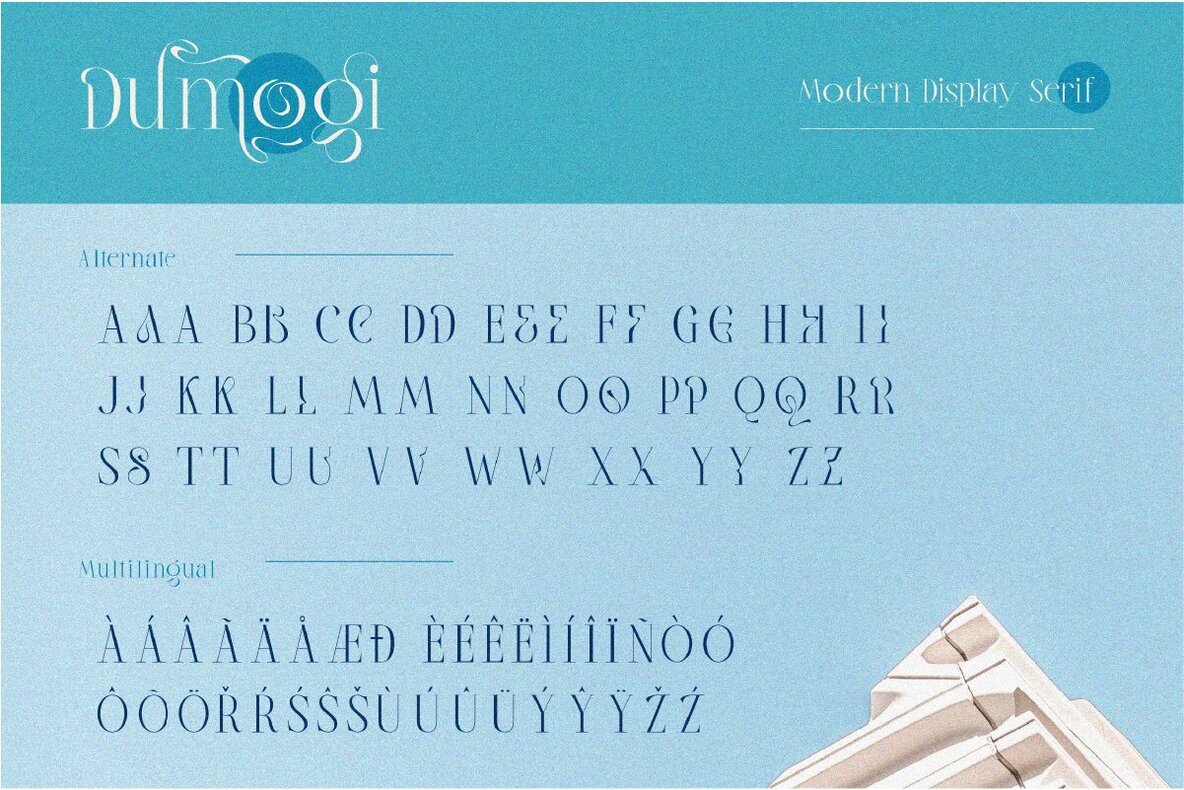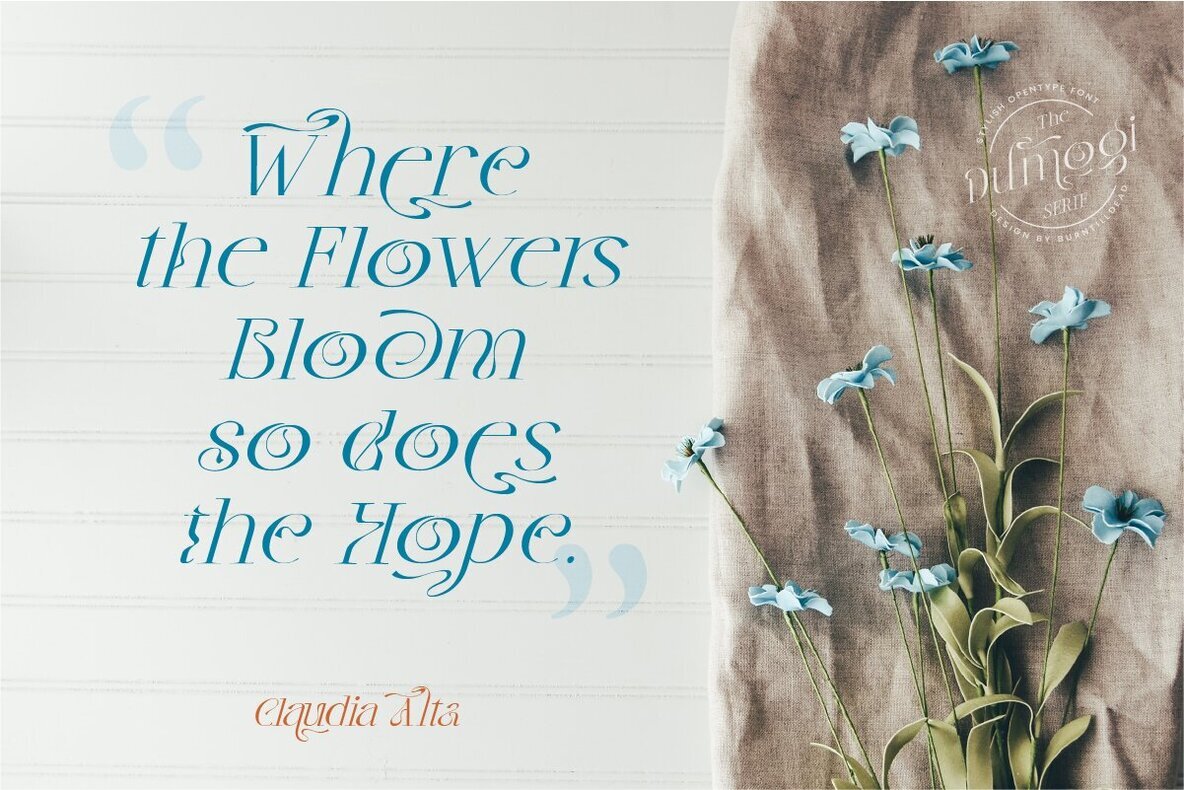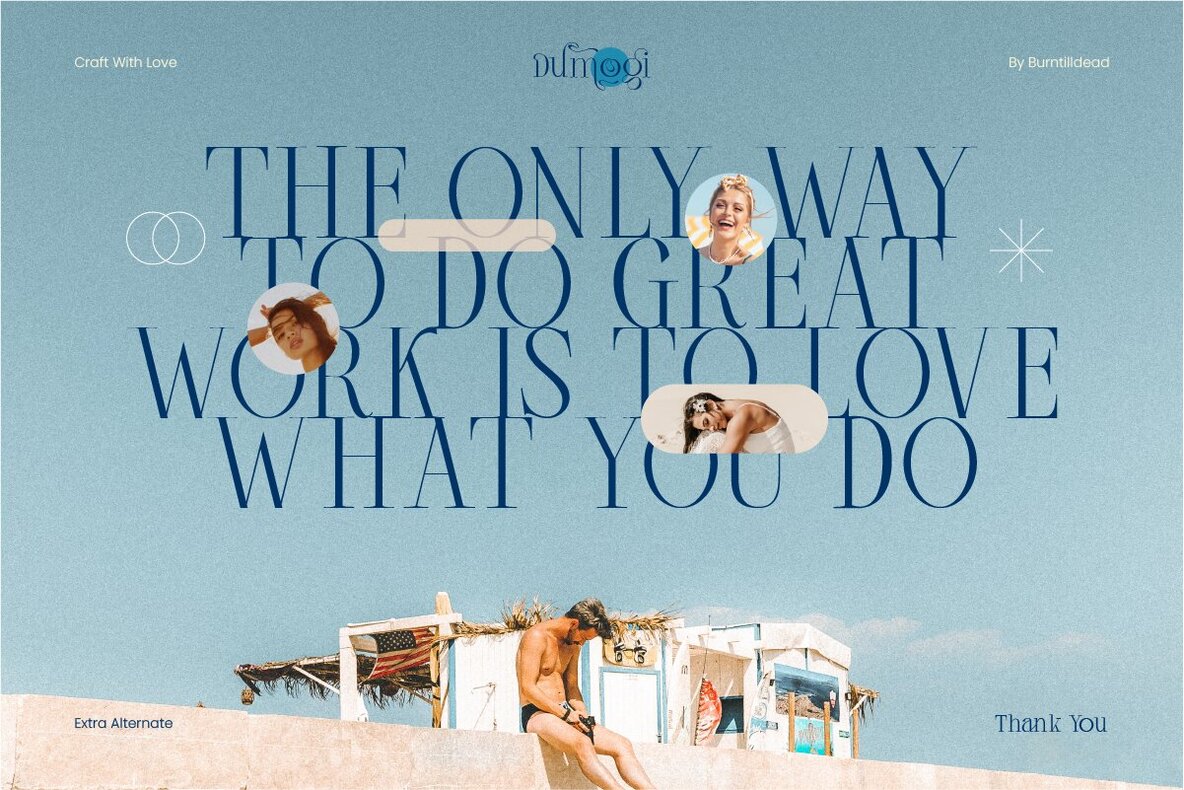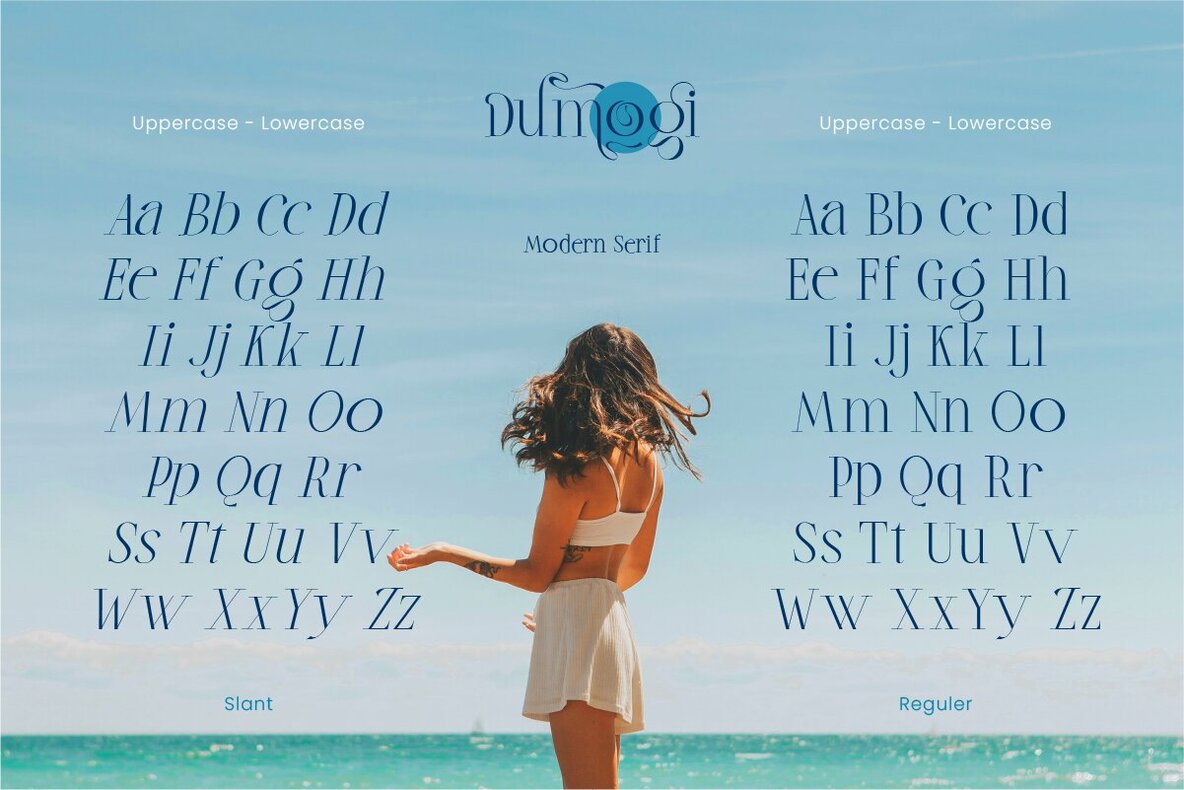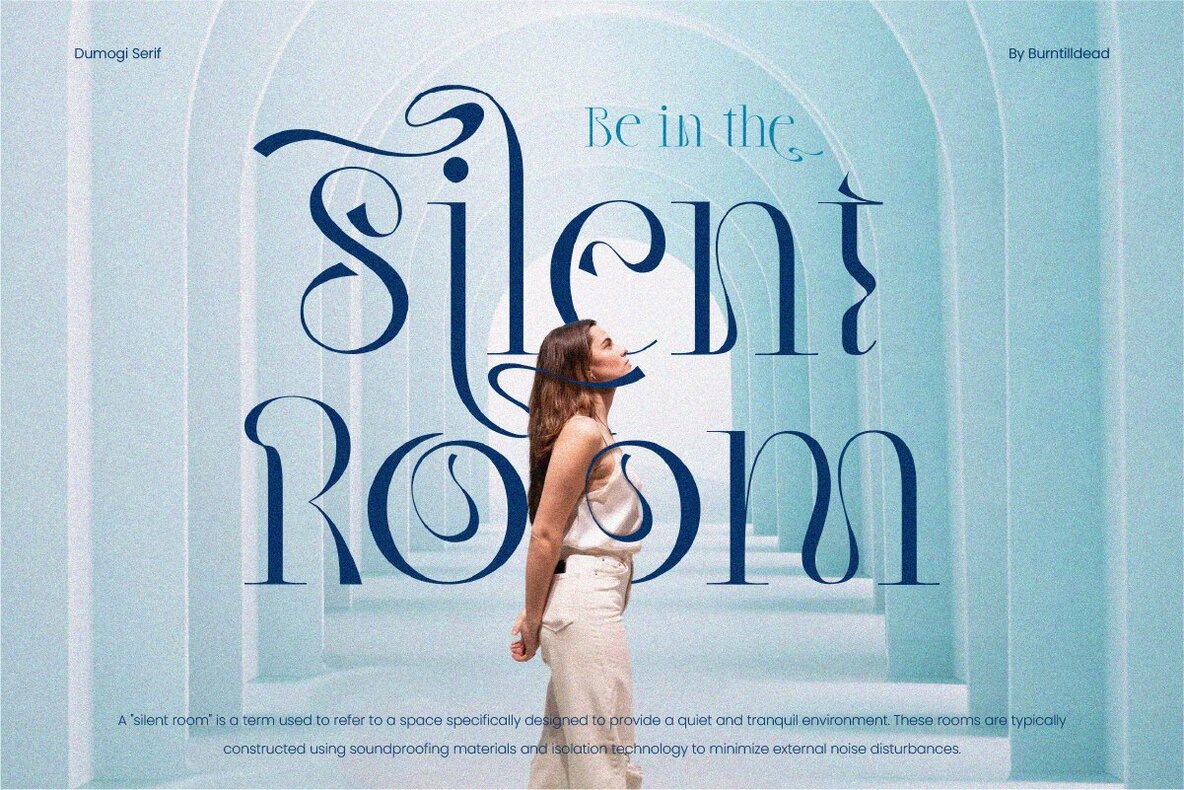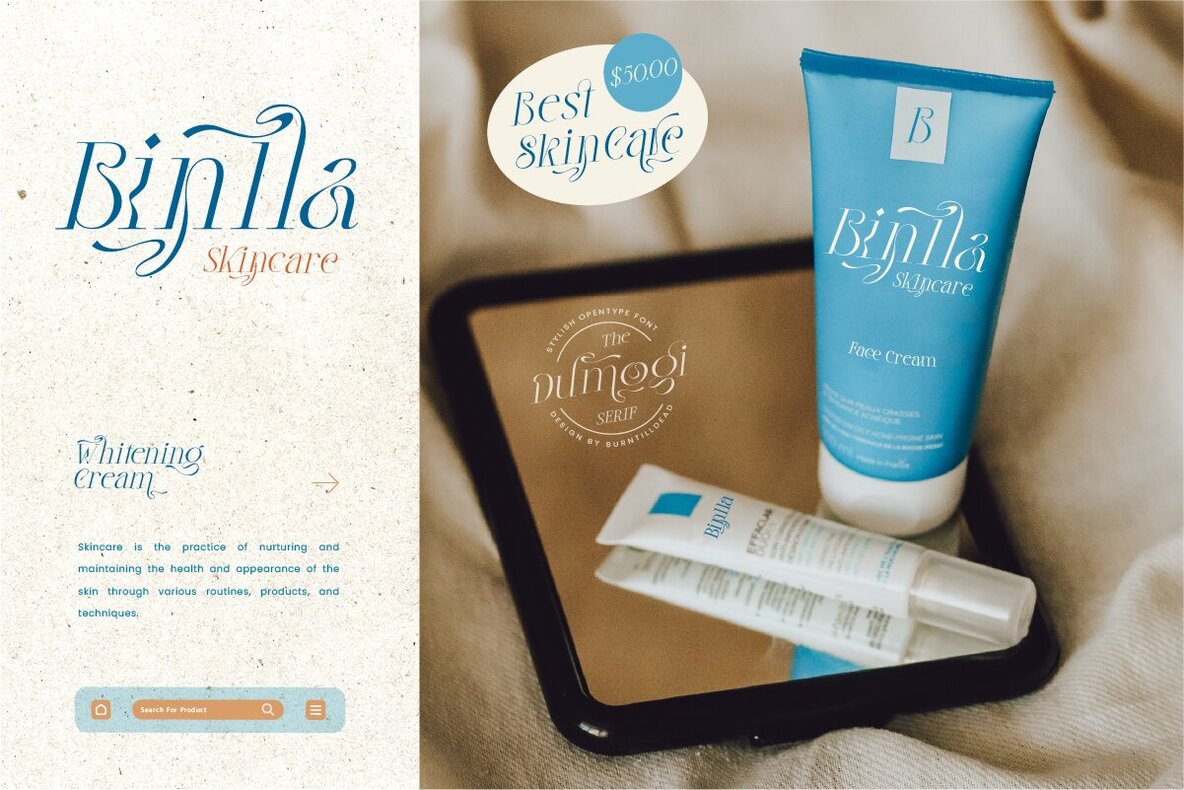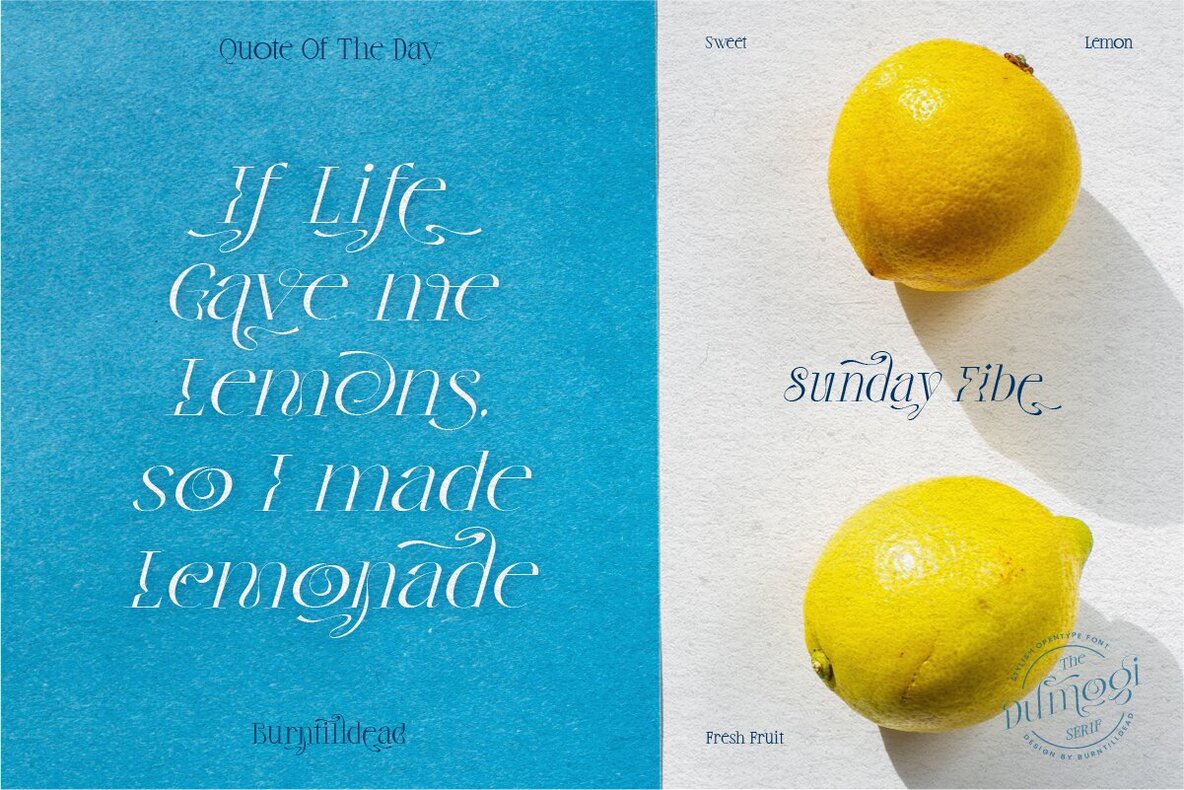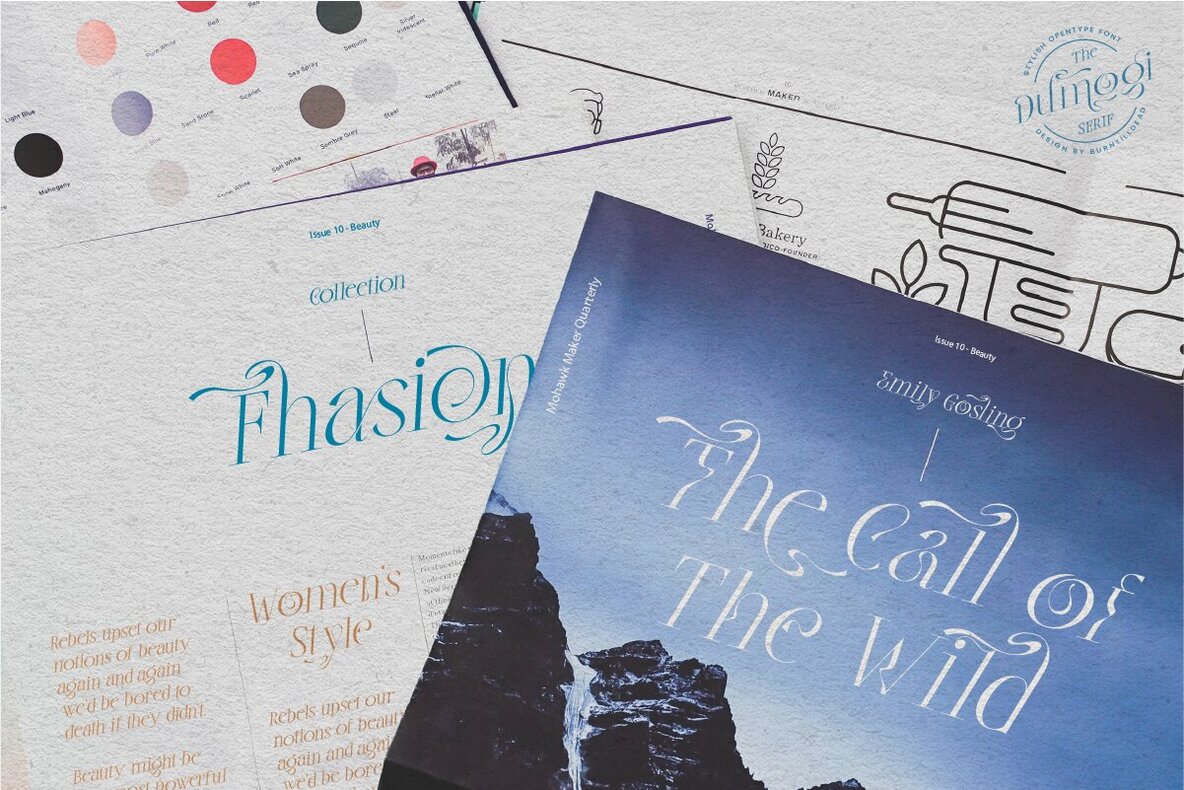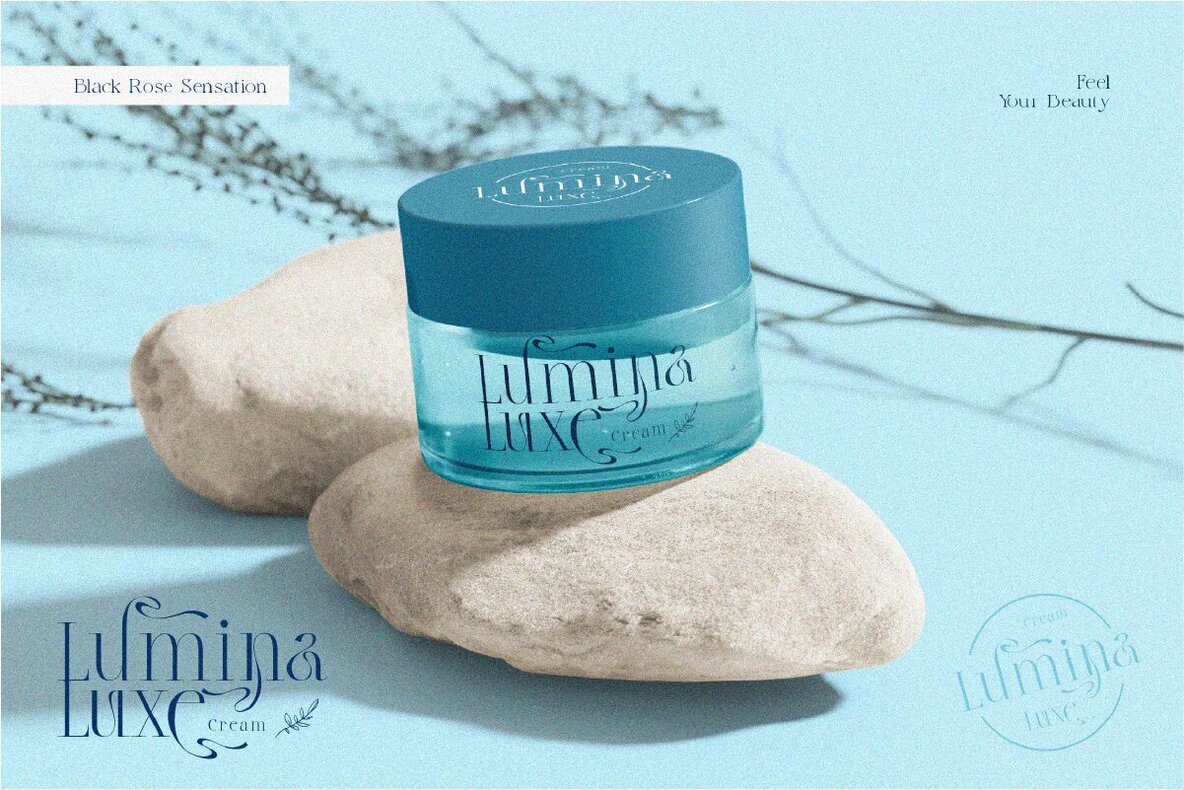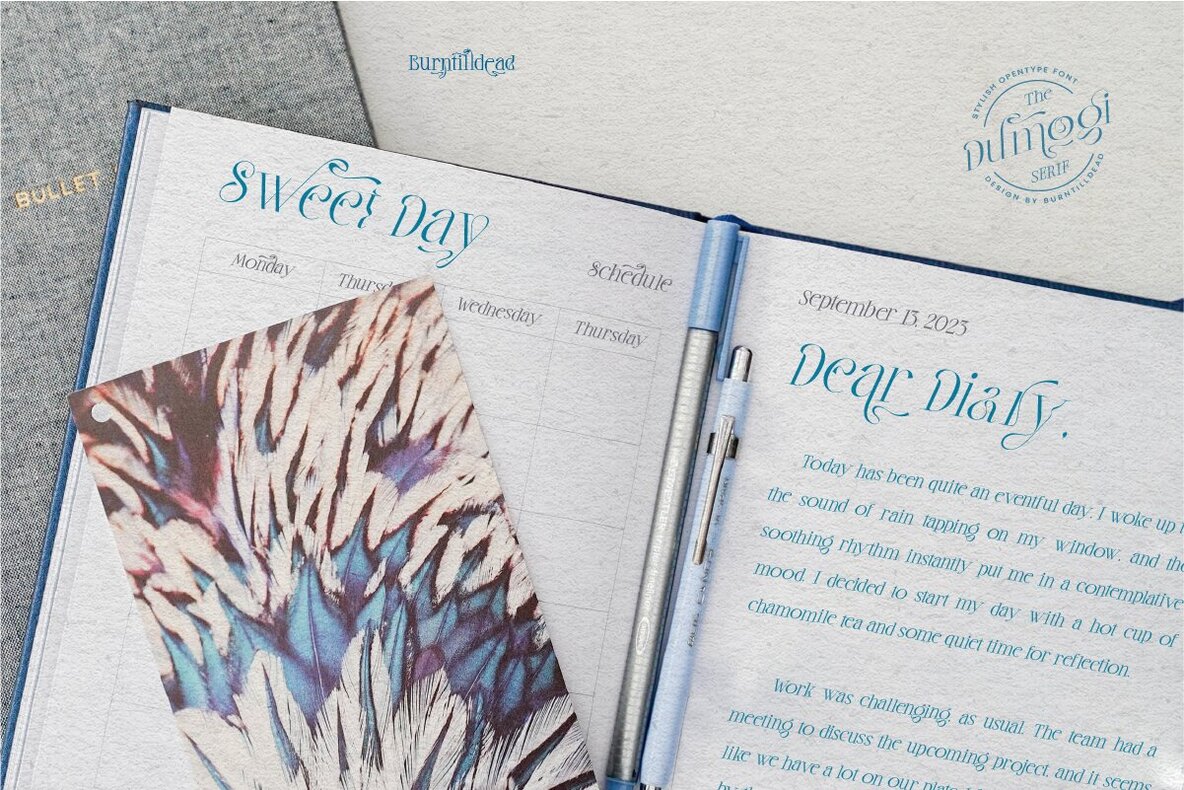
Dumogi Font
Dumogi Regular
Dumogi Italic
Welcome to Dumogi, a modern and stylish serif font designed to bring an elegant, classy, and unique flair to your design projects. This serif style is adaptable across various media, providing a prestigious look that has been appreciated for decades. With the "Dumogi" font, you can effortlessly enhance your design's mood by incorporating alternate characters. It features 428 glyphs, offering many unique and interesting alternative options for creative expression.Dumogi: Modern Stylish Serif Font
Versatile and Prestigious